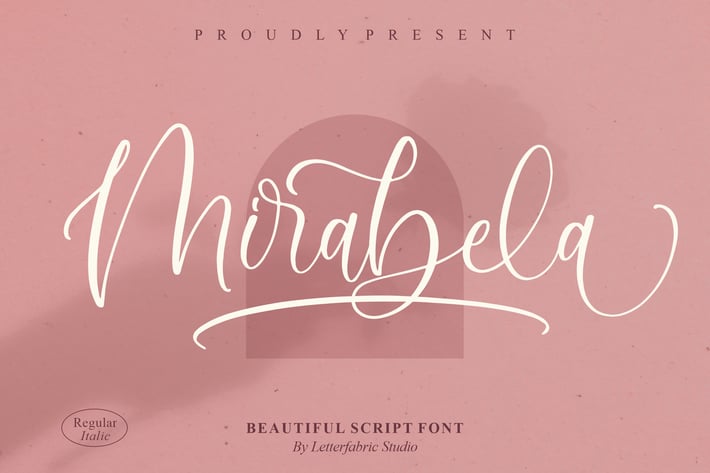
Mirabela Script Font
Mirabela is a graceful modern script with soft curves, airy swashes, and a romantic rhythm. Designed for elegance without fuss, it brings hand-lettered warmth to logos, invitations, packaging, and social posts while staying crisp and readable on print and screen.
+ Uppercase & lowercase, numerals, punctuation
+ Stylistic alternates (SS01–SS05), beginning/ending swashes
+ Standard & discretionary ligatures
+ Multilingual support (Western/Central/Eastern Europe)
+ Precise kerning & clean nodes for smooth outlines
+ Optimized for print & web; looks sharp at small and large sizes
+ Wedding suites (invites, save-the-dates, place cards)
+ Branding & logos for beauty, fashion, lifestyle
+ Packaging and product labels
+ Social media quotes, pins, and stories
+ Greeting cards & stationery
+ Blog/website headers & hero text
+ Event signage and photo overlays
Write with romance—let Mirabela turn every word into a keepsake.